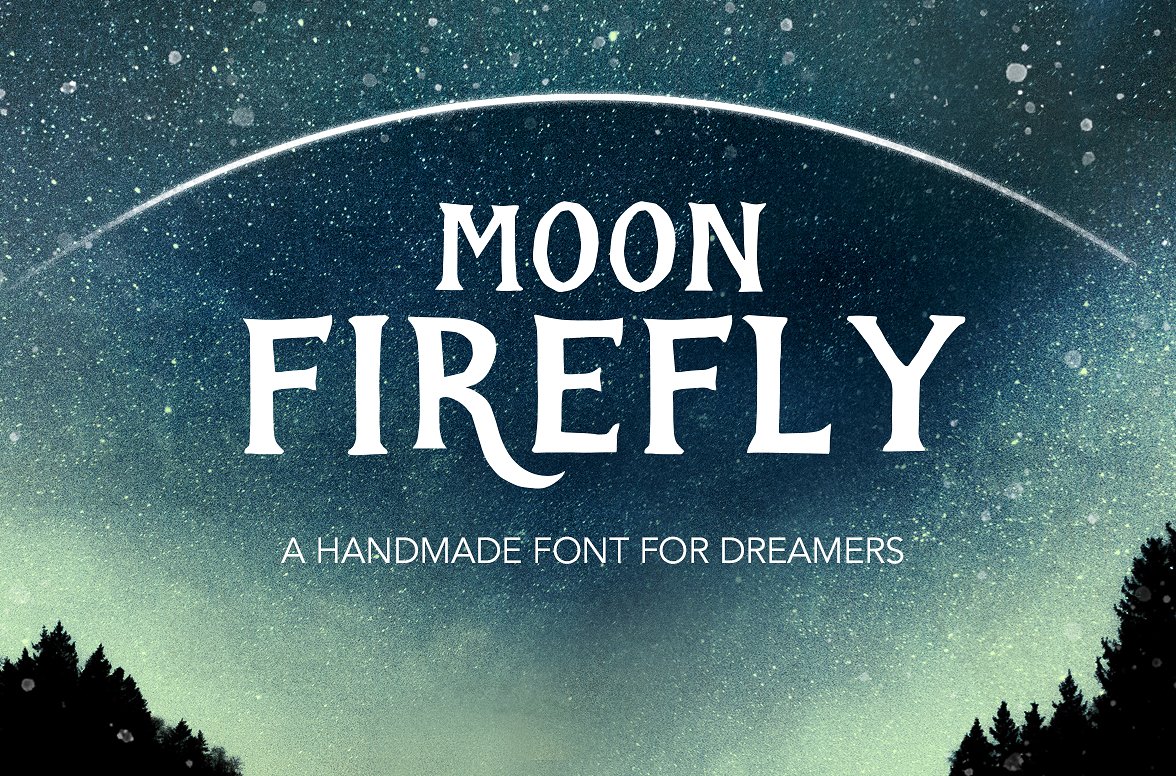
Moon Firefly
Moon Firefly is a handmade display font for and by dreamers. Just type its Uppercase characters to use the alternates and make your designs stand out even more. French, Dutch, English, Welsh, Italian and Spanish languages supported.